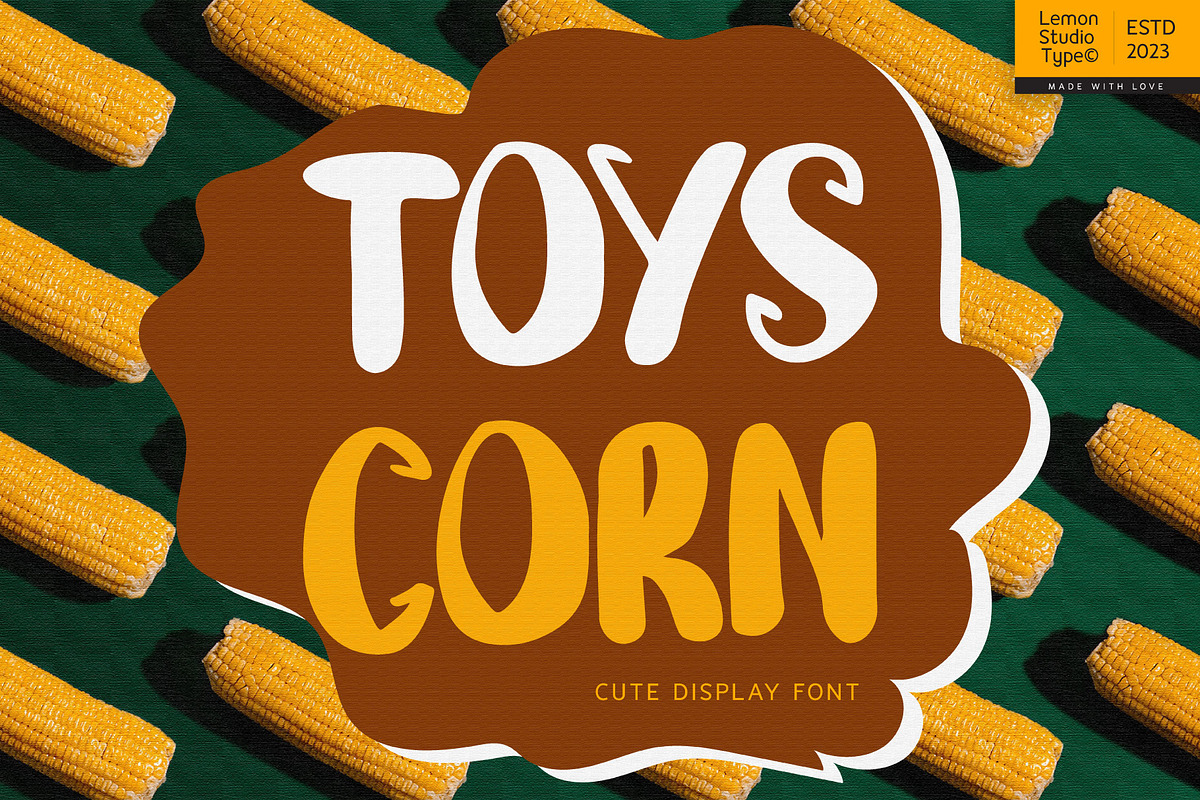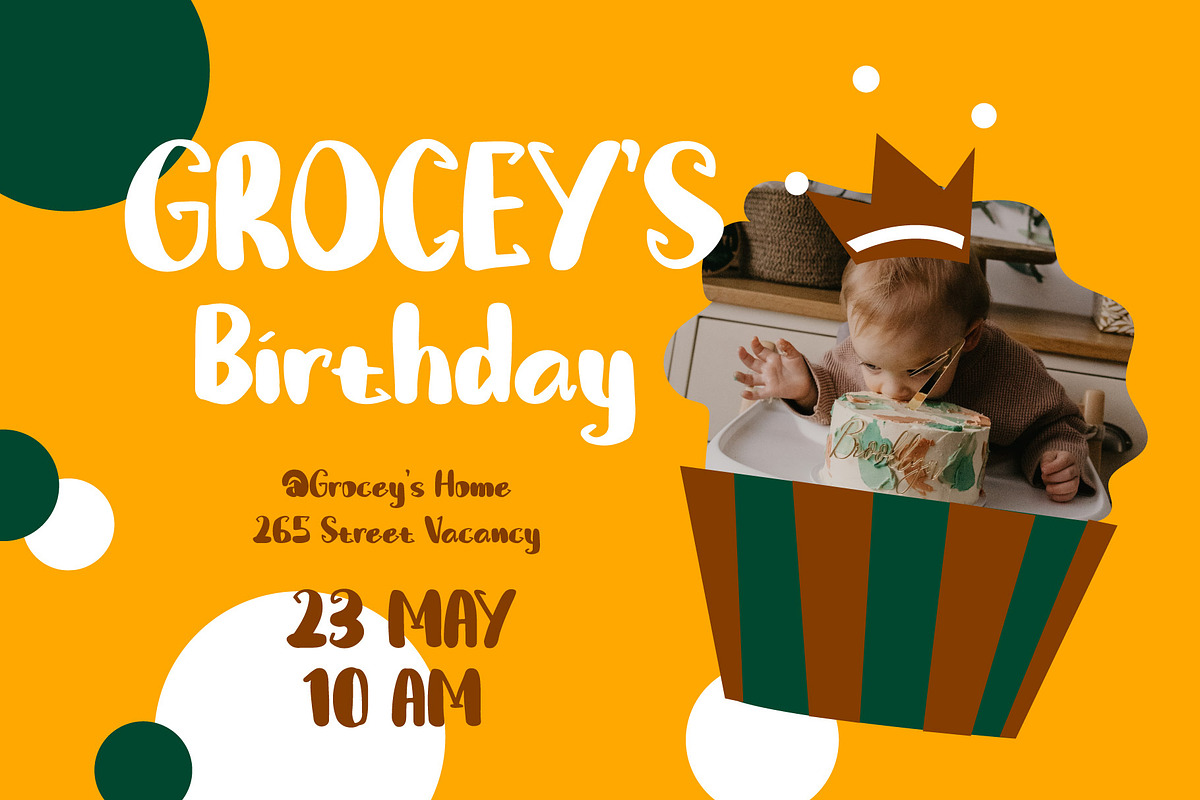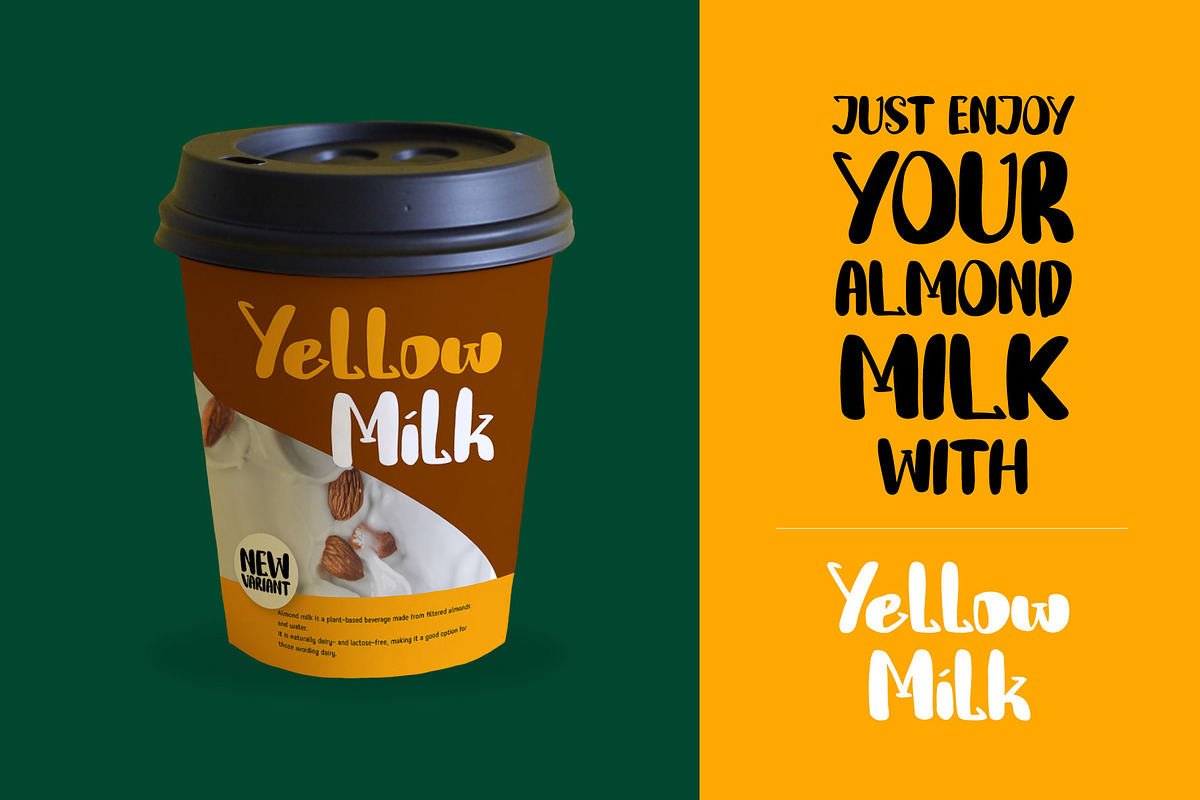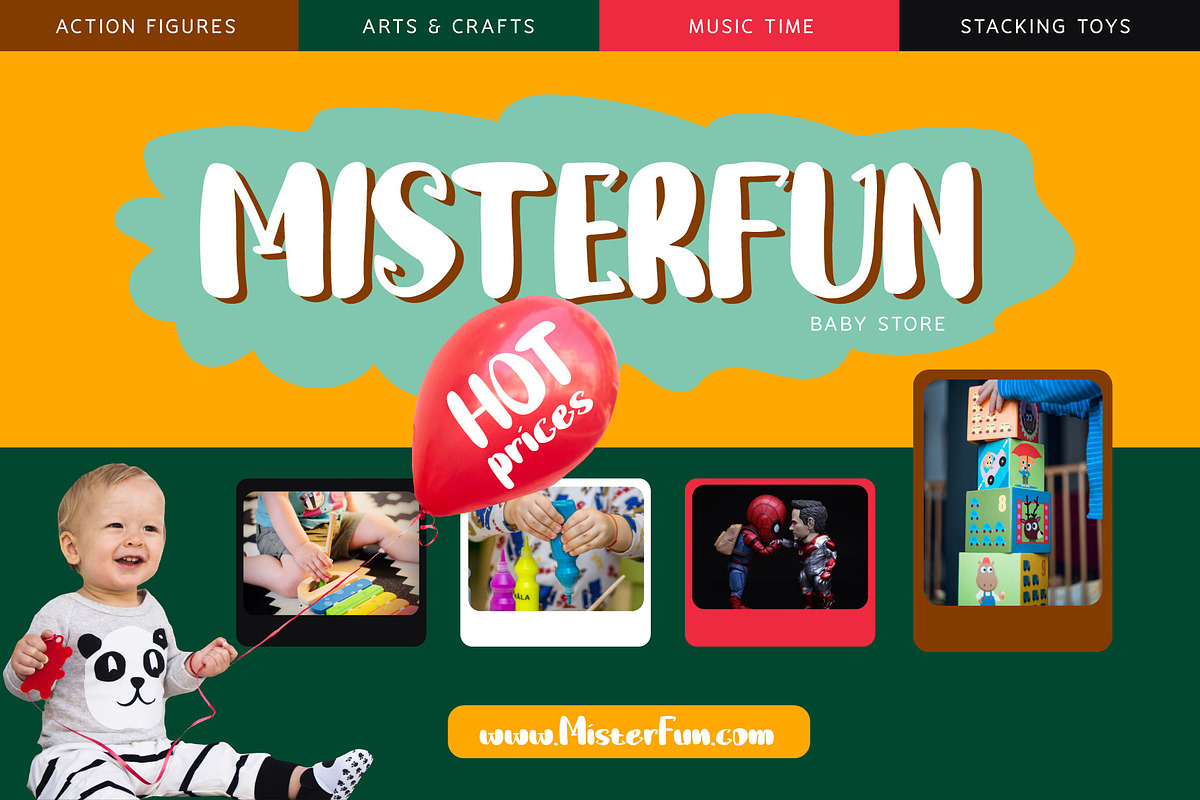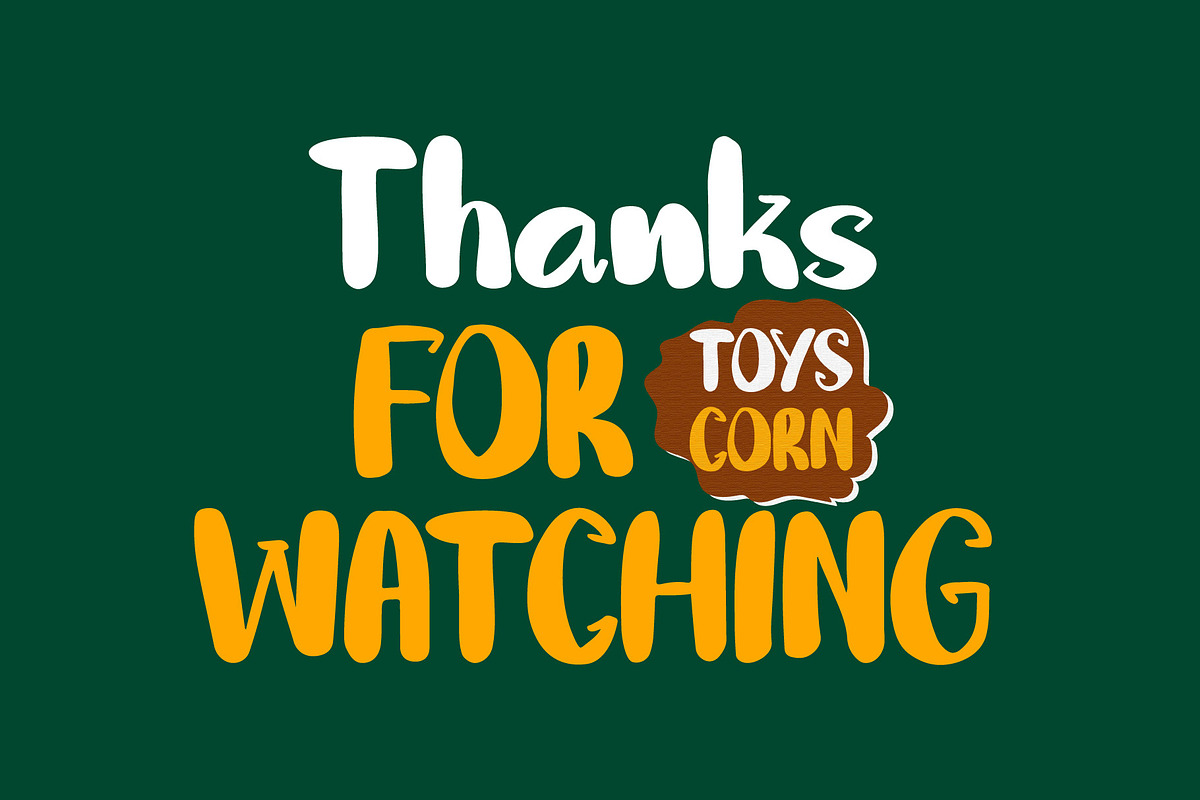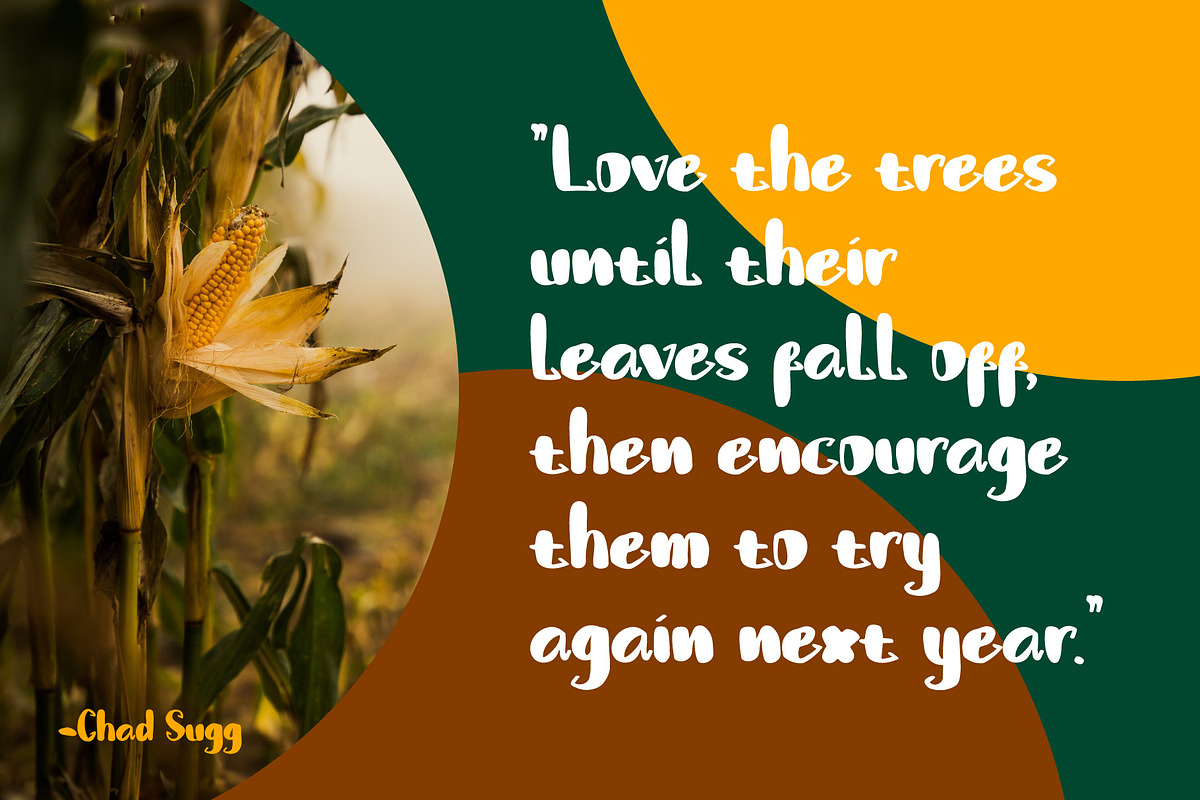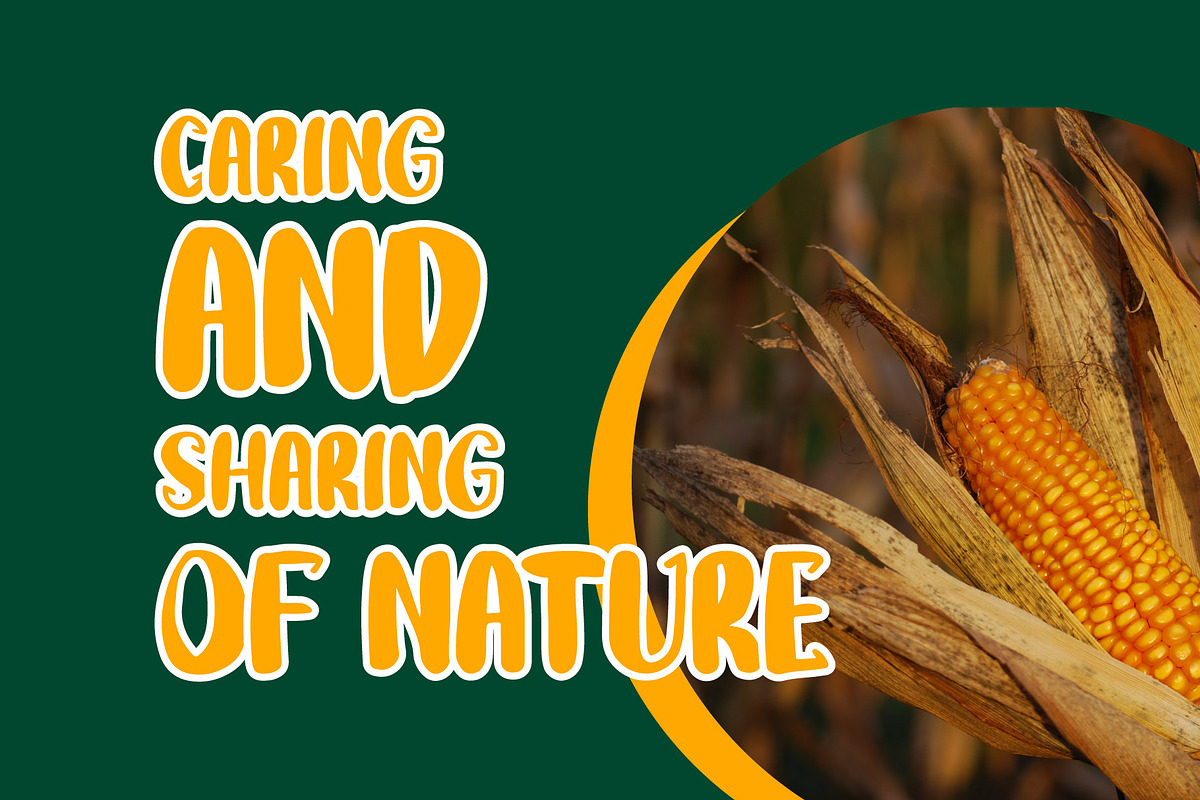
Toys Corn - Cute Handwritten
Introducing Toys Corn. A handwritten font inspired by several style combinations namely hand written, display, and a bit of serif that adds beauty. Use this font for various design needs that you need. Just enjoy it.